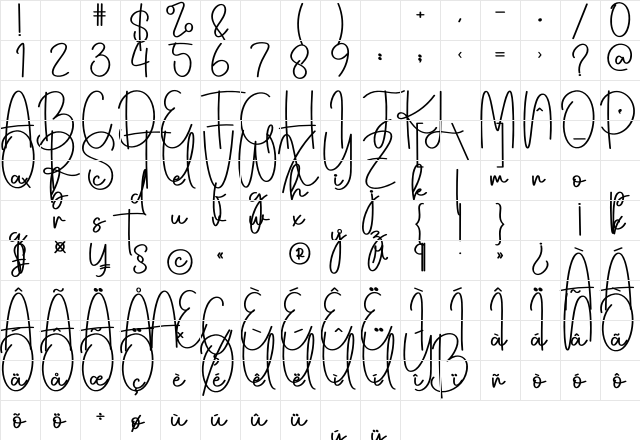
Stockingcute Regular Free Font
Stockingcute Regular
Design Context for Stockingcute
Stockingcute is a composed and adaptable typeface that performs quietly and consistently across a wide range of design contexts.